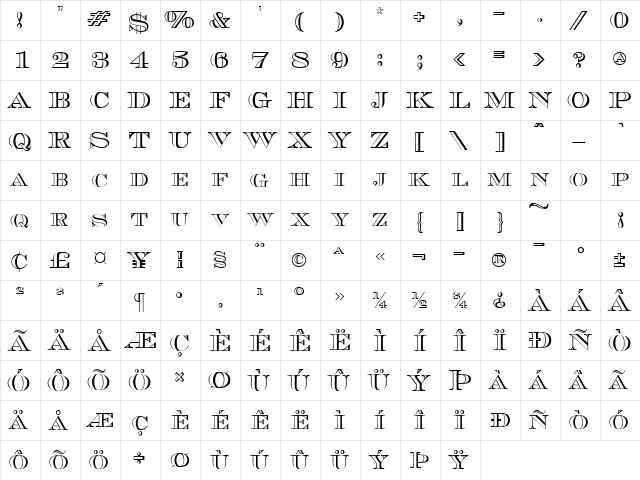
TribOutlineSCapsSSK Regular
Design Context for TribOutlineSCapsSSK Typeface
TribOutlineSCapsSSK brings ornamental detail and strong personality to headlines and identities, where visual impact matters more than quiet functionality.
Font Pairing: Pair with a clean neutral sans-serif for body copy to let TribOutlineSCapsSSK's character lead without overwhelming the composition.
Pro Tip: Treat TribOutlineSCapsSSK as the centrepiece of your typographic hierarchy. One strong heading set in a decorative face can carry an entire layout.